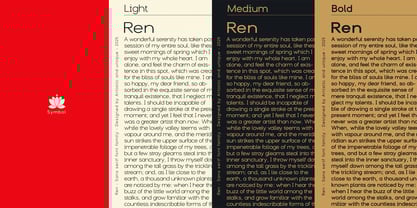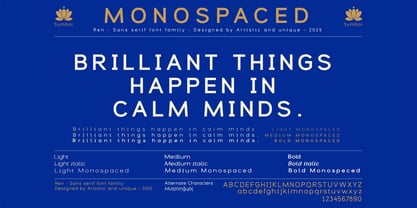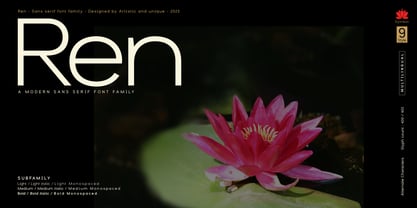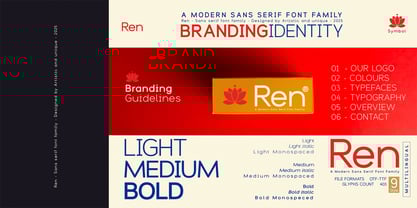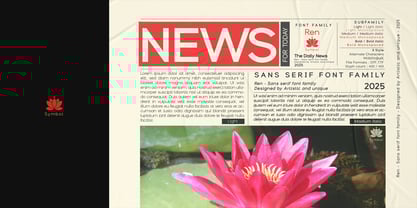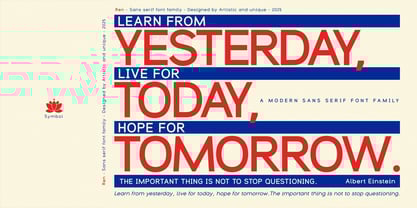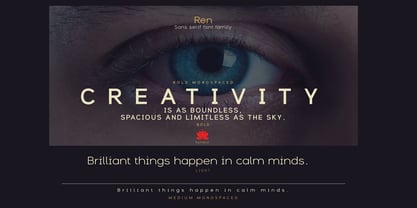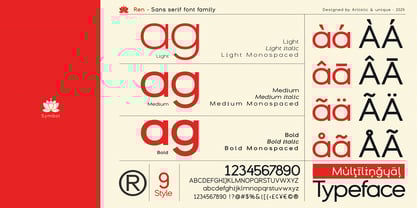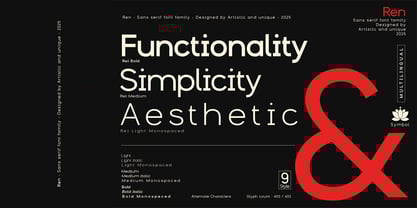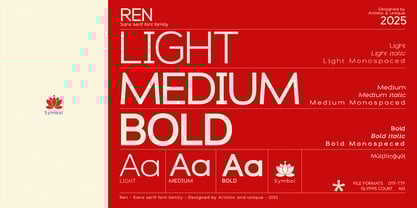
La famille de polices Ren a été conçue par Osman Taner Kucukgenc et publiée par Artisticandunique. Ren contient 9 styles et options de package familial.
Ren - Sans serif font family - Multilingual support - 9 Styles
'' In many spiritual traditions, the Ren flower (Lotus) is associated with purity and enlightenment. Its ability to grow from mud and bloom above water symbolizes transcendence and is often used as a representation of one's spiritual journey toward enlightenment. ''
This font was designed with an emphasis on Japanese elegance and aesthetic simplicity in sans serif typefaces. It features alternative characters, nine styles, multilingual content, and a unique symbol. This richness of content allows it to contribute to the aesthetic concerns of your creative projects.
If you're looking for a more elegant look, you can meet this need with the 3 Monospaces styles.
Features :
• Extensive Character Set - Includes uppercase, lowercase, punctuation, symbols, and numbers.
• Extended Design Flexibility - Offers multiple weights and styles.
• Multilingual Support - Perfect for global projects.
Whether you're designing books, magazines, or newspapers, or developing editorial headlines, websites, logos, and branding, the Ren font family offers a harmonious blend of modern and classic aesthetics. Enhance your designs with this versatile font that respects tradition while meeting contemporary needs.
Technologies can change and evolve. However, no matter how much the production environments change, good typography created with the principles of creative and correct use of fonts will not change. Osman Taner Küçükgenç is an Istanbul based designer with a background in graphic design and advertising. He created his personal brand, Artistic and Unique, in order to create quality digital content. He spent years designing typography and typefaces, which are an important part of his academic education and therefore his profession. Fonts are an important tool in all visual communication. While designing the typeface to be unique, having a story behind it gives it character. It is intended to design this tool in the best and most functional way for the user.